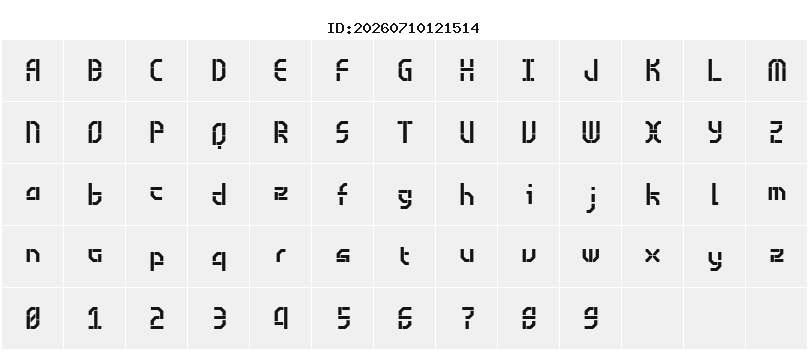
EDIFICE Preview
• Font Name: EDIFICE
• Full Font Name: EDIFICE
• PostScript Name: EDIFICE
About EDIFICE.ttf
EDIFICE.ttf is a modern, elegant sans-serif font designed for ultimate readability and visual harmony. Perfect for branding, headlines, web design, and print materials.